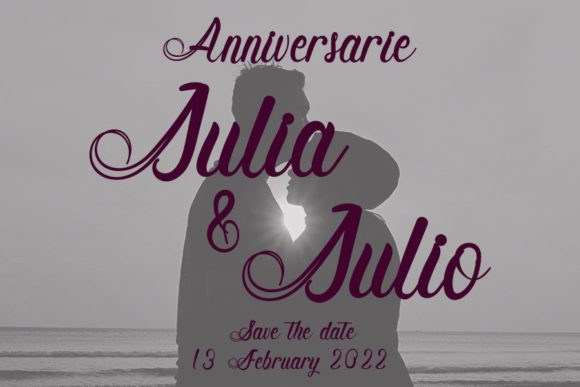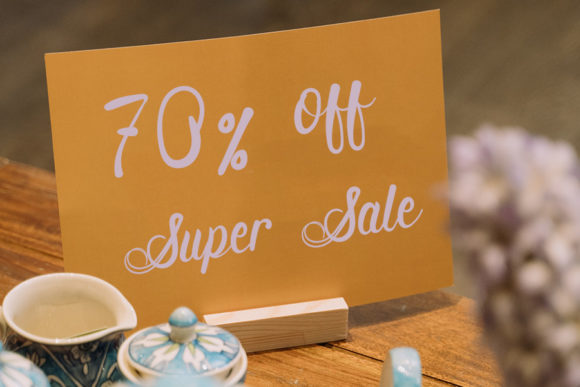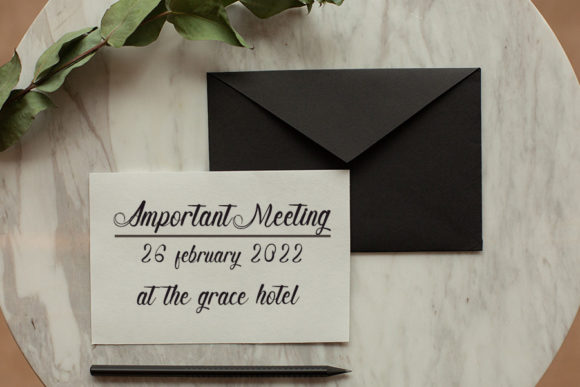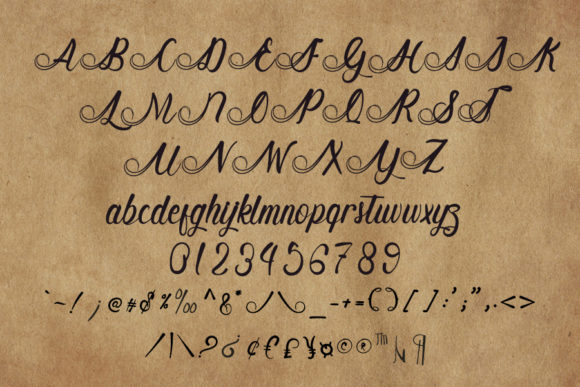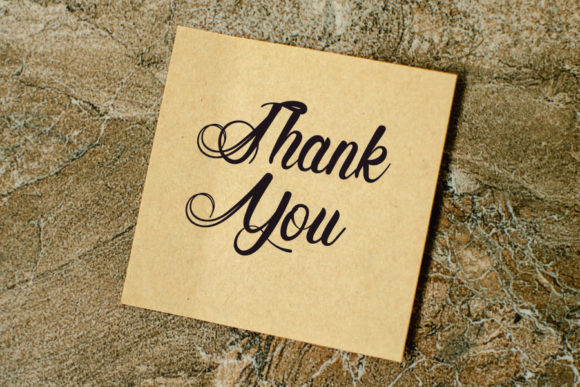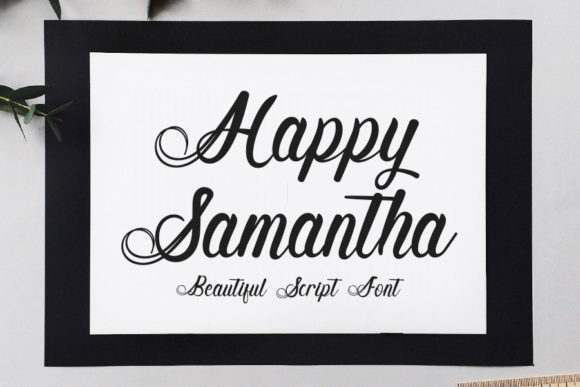
Introducing Happy Samantha Font: Elevate Your Designs with a Unique Handwritten Style
Are you tired of using the same old fonts in your designs? Do you want to add a personal touch to your creative projects? Look no further than Happy Samantha Font, a beautiful and versatile handwritten font that’s sure to make your designs stand out. With its unique feel and stunning impact, Happy Samantha is the perfect addition to any design or craft project you have coming up.
What Makes Happy Samantha Font So Special?
Happy Samantha Font is a one-of-a-kind handwritten font that’s been carefully crafted to bring a touch of personality to your designs. Its unique feel is a result of the careful attention to detail and the passion that has gone into its creation. This font is perfect for designers and crafters who want to add a human touch to their work, making it ideal for a wide range of projects, from wedding invitations and greeting cards to branding and packaging.
Key Features of Happy Samantha Font
- Unique and Versatile: Happy Samantha Font has a distinctive style that’s both elegant and playful, making it suitable for a wide range of design projects.
- Handwritten with Love: This font has been carefully crafted by hand, giving it a personal touch that’s hard to find in digital fonts.
- Easy to Read: Despite its unique style, Happy Samantha Font is easy to read, making it perfect for body text and headlines.
- Scalable: This font is highly scalable, ensuring that it looks great in any size, from small captions to large headlines.
Use Happy Samantha Font in Your Designs
Happy Samantha Font is perfect for a wide range of design projects, including:
- Wedding Invitations: Add a touch of elegance and romance to your wedding invitations with Happy Samantha Font.
- Greeting Cards: Create personalized and heartfelt greeting cards for any occasion with this beautiful font.
- Branding and Packaging: Use Happy Samantha Font to add a unique touch to your brand’s packaging and marketing materials.
- Social Media Graphics: Elevate your social media graphics with Happy Samantha Font, making your posts stand out from the crowd.
Tips for Using Happy Samantha Font
To get the most out of Happy Samantha Font, here are a few tips to keep in mind:
- Pair it with Other Fonts: Experiment with pairing Happy Samantha Font with other fonts to create a unique and visually appealing combination.
- Use it for Headlines and Titles: Happy Samantha Font is perfect for headlines and titles, adding a touch of personality to your designs.
- Experiment with Colors: Try out different colors with Happy Samantha Font to add an extra layer of depth and interest to your designs.